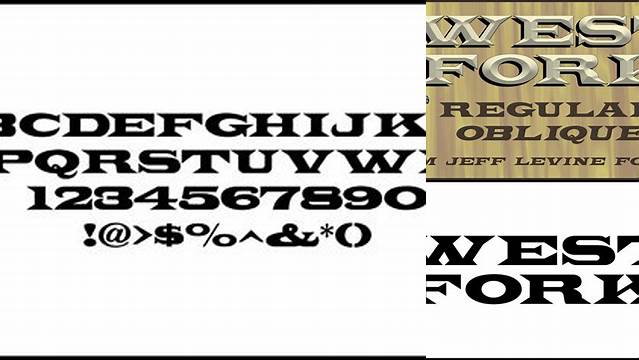
Unveiling the West Fork JNL Regular Font: A Typographic Gem
Hey design enthusiasts! Let's dive into the awesome world of typography and talk about a font that's been making waves: the West Fork JNL Regular font. If you're on the hunt for a typeface that blends classic charm with a touch of modern flair, you've stumbled upon the right spot, guys. This font isn't just another pretty face; it's a versatile workhorse designed to elevate your projects, whether you're crafting a compelling brand identity, designing eye-catching social media graphics, or laying out a professional report. The West Fork JNL Regular font boasts a unique character that makes it stand out from the crowd. Its strokes have a certain warmth and readability that can be hard to find. Think about the last time a piece of text just grabbed your attention – chances are, the typography played a huge role. That's the power we're talking about here. We're going to explore why this font is such a popular choice and, more importantly, guide you through the simple process of snagging your own free download so you can start experimenting with it right away. Get ready to add a serious dose of personality and professionalism to your designs!
Why Choose West Fork JNL Regular for Your Next Project?
So, what makes the West Fork JNL Regular font such a go-to for designers and creatives? It’s all about its balanced aesthetics and incredible versatility. This isn't a font that's stuck in a niche; it can adapt to a surprising range of applications. For starters, its legibility is top-notch. Whether you're setting large headlines or small body text, the West Fork JNL Regular font remains clear and easy to read, which is absolutely crucial for any design that needs to communicate effectively. Beyond just readability, there’s a distinct personality to this typeface. It manages to be both friendly and sophisticated, a combination that’s often sought after but rarely achieved so gracefully. Imagine using it for a boutique's branding – it would exude an air of understated elegance. Or perhaps for a blog about artisanal crafts – it would lend a handmade, approachable feel. The strokes are clean, yet they possess a subtle character that prevents them from feeling sterile or generic. This makes it ideal for print materials, web design, logos, and even merchandise. Plus, its regular weight provides a solid foundation, suitable for a multitude of design contexts without being too overpowering or too subtle. When you're aiming for a design that resonates, a font like West Fork JNL Regular is your secret weapon. It’s the kind of typeface that makes people feel something, adding an emotional layer to your visual communication that can be incredibly impactful. We'll get into the nitty-gritty of where to find this gem for free shortly, but understanding why it’s worth seeking out is the first step to unlocking its full potential in your creative arsenal.
Exploring the Typographic Qualities of West Fork JNL Regular
Let's get a bit nerdy, shall we? The West Fork JNL Regular font isn't just a collection of letters; it's a carefully crafted piece of art designed for visual communication. When you look closely, you'll notice the subtle details that give it its unique charm. The terminals, where strokes end, often have a gentle curve or a slight flourish that adds a touch of softness, making it feel less rigid than many sans-serif fonts. At the same time, the overall structure maintains a clean and modern silhouette, ensuring it doesn't lean too heavily into the ornate. The ascenders (the parts of letters like 'h' or 'b' that extend upwards) and descenders (the parts of 'p' or 'q' that extend downwards) are well-proportioned, contributing to excellent readability, especially in longer passages of text. The x-height – the height of lowercase letters like 'x' – is also generous, further enhancing legibility. This thoughtful construction means that West Fork JNL Regular is incredibly versatile. It’s robust enough for headlines that need to grab attention, yet refined enough for body copy that needs to be comfortable to read for extended periods. Think about how different fonts evoke different emotions; West Fork JNL Regular often brings a sense of calm, approachability, and professionalism. It strikes a fine balance, avoiding the coldness of some highly geometric sans-serifs and the overly casual vibe of some script fonts. It’s the reliable friend in your font library, the one you can always count on to make your content look polished and inviting. We're talking about a typeface that understands the fundamental principles of good design – balance, rhythm, and contrast – and executes them beautifully. This deep dive into its qualities is just a prelude to understanding how to best utilize it once you've got it downloaded and ready to go!
Optimizing Your Designs with West Fork JNL Regular Font
Now that you've got the West Fork JNL Regular font downloaded and installed, let's talk about how to use it like a pro. It’s not just about slapping text on a page; it’s about using typography strategically to enhance your message. With West Fork JNL Regular, you have a versatile tool at your disposal. For headlines and titles, its clear structure and appealing personality make it a fantastic choice. Try using it in a larger point size with generous letter spacing (kerning) to give it an airy, sophisticated feel. For body text, ensure the size is comfortable for reading – typically between 10-14pt depending on the context and line height. Play with line spacing (leading) to improve readability; slightly increased leading can make blocks of text feel less dense and more inviting. This font also works wonderfully for call-to-action buttons or navigation menus, where clarity and a friendly tone are key. Consider pairing West Fork JNL Regular with a contrasting font – perhaps a more classic serif for body text if you're using this for headings, or vice versa. This creates visual interest and hierarchy in your design. Don't be afraid to experiment with different weights if available, or even subtle manipulations like slight adjustments to tracking (overall letter spacing) or using it in all caps for a bold statement. The key is to maintain balance and ensure the typography serves the overall design, not overwhelms it. Remember, the goal is to make your content not only look good but also feel good to engage with. This font provides the perfect foundation for that!
Tips for Pairing West Fork JNL Regular with Other Fonts
Pairing fonts can be tricky, but it’s also where the real magic happens in design! The West Fork JNL Regular font, with its balanced and versatile nature, plays well with others, but knowing a few tricks can elevate your typographic compositions. A classic approach is to pair it with a serif font. If West Fork JNL Regular is acting as your headline font, consider a readable serif like Georgia or Times New Roman (though maybe a more modern serif like Lora or Playfair Display for extra flair!) for your body text. This contrast between sans-serif and serif creates a dynamic yet harmonious look. Alternatively, you can pair it with another sans-serif font that has a different weight or character. For example, if West Fork JNL Regular feels a bit too friendly, you could pair it with a more geometric or condensed sans-serif for headings to add a touch of modernity or boldness. Another strategy is to use different weights or styles within the West Fork JNL family, if available. This creates a cohesive yet varied look. When selecting a secondary font, think about the mood you want to convey. West Fork JNL Regular is generally approachable and clean; so, a pairing should either complement that or provide a deliberate, interesting contrast. Avoid pairing it with fonts that have too much personality or are overly decorative, as this can lead to a cluttered and confusing design. Always test your pairings at different sizes and in different contexts (print vs. web) to ensure legibility and aesthetic appeal. Remember, the goal is for the fonts to work together to enhance your message, not compete with each other. With West Fork JNL Regular, you have a solid foundation for some beautiful typographic partnerships!
Exploring Variations: Is West Fork JNL Bold Available?
As you get comfortable with the West Fork JNL Regular font, you might start wondering about its siblings. Does it come in different weights like bold, italic, or light? This is a common question, as font families often offer a range of styles to provide even more design flexibility. While the